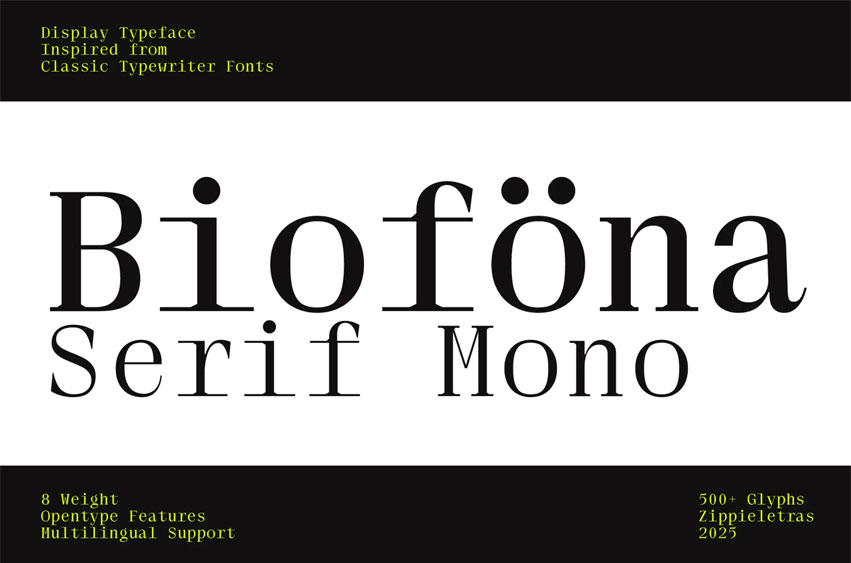
Biofona Font is a modern monospace typewriter font crafted for branding, editorial design, and bold display use. Blending the structured rhythm of typewriter lettering with smooth, well-proportioned forms, Biofona delivers a unique balance between retro charm and contemporary clarity.
Perfect for logos, websites, posters, signage, and brand identity systems, its versatile design makes it adaptable across digital and print media. Alternate characters and Stylistic Set 01 (SS01) unlock creative variations for glyphs like R, a, g, giving designers more flexibility to create distinctive wordmarks and editorial layouts.
With 8 styles ranging from Thin to Extrablack, Biofona provides a full spectrum of weight contrast — ideal for delicate body text or bold, striking headlines. Smooth ligatures and stylistic alternates enhance its typographic expression, making it suitable for both corporate systems and creative campaigns.
Personality
“Biofona” – a refined monospace typewriter font with smooth versatility for modern branding.
Feels like:
• Typewriter tradition meets modern branding
• Editorial spreads with structured typography
• Minimalist yet expressive corporate design
• Monospace rhythm for bold identity systems
• Retro charm adapted for digital use
Best For:
• Logo design & unique wordmarks
• Branding & corporate identity
• Editorial spreads & magazine layouts
• Posters, headlines & signage
• Websites & digital platforms
• Packaging & print products